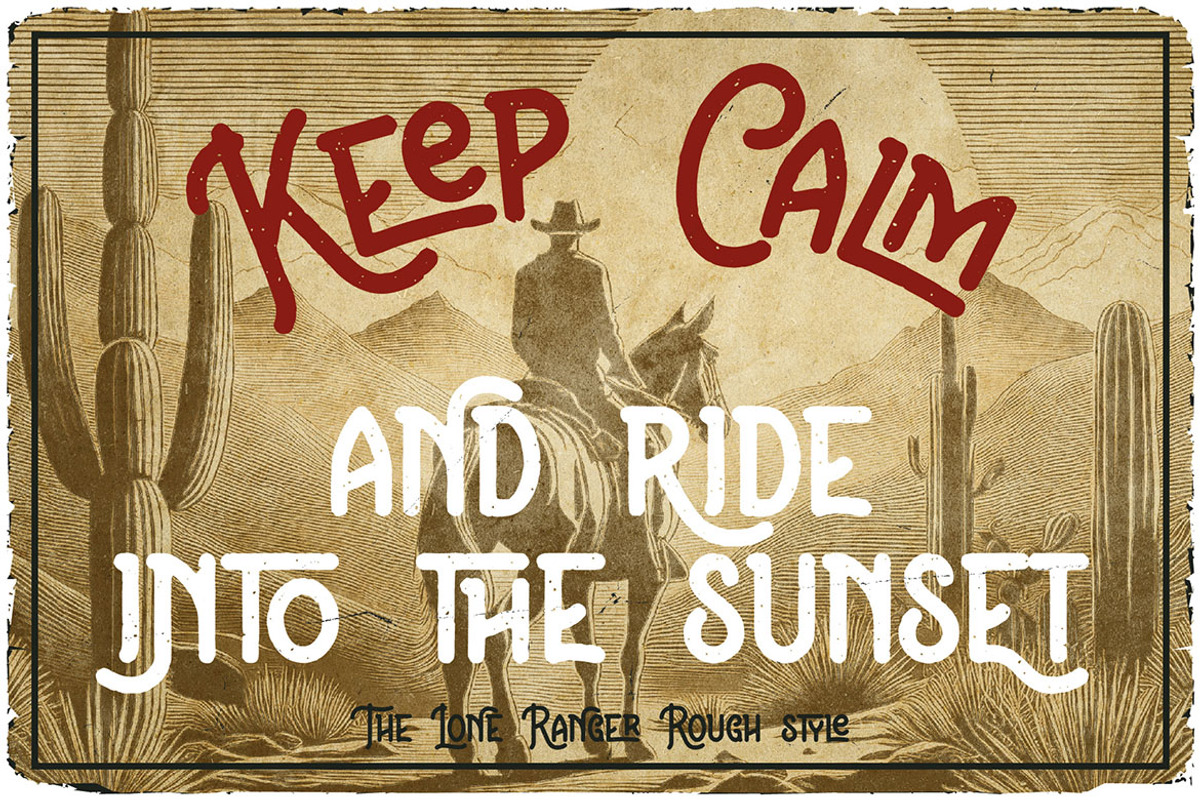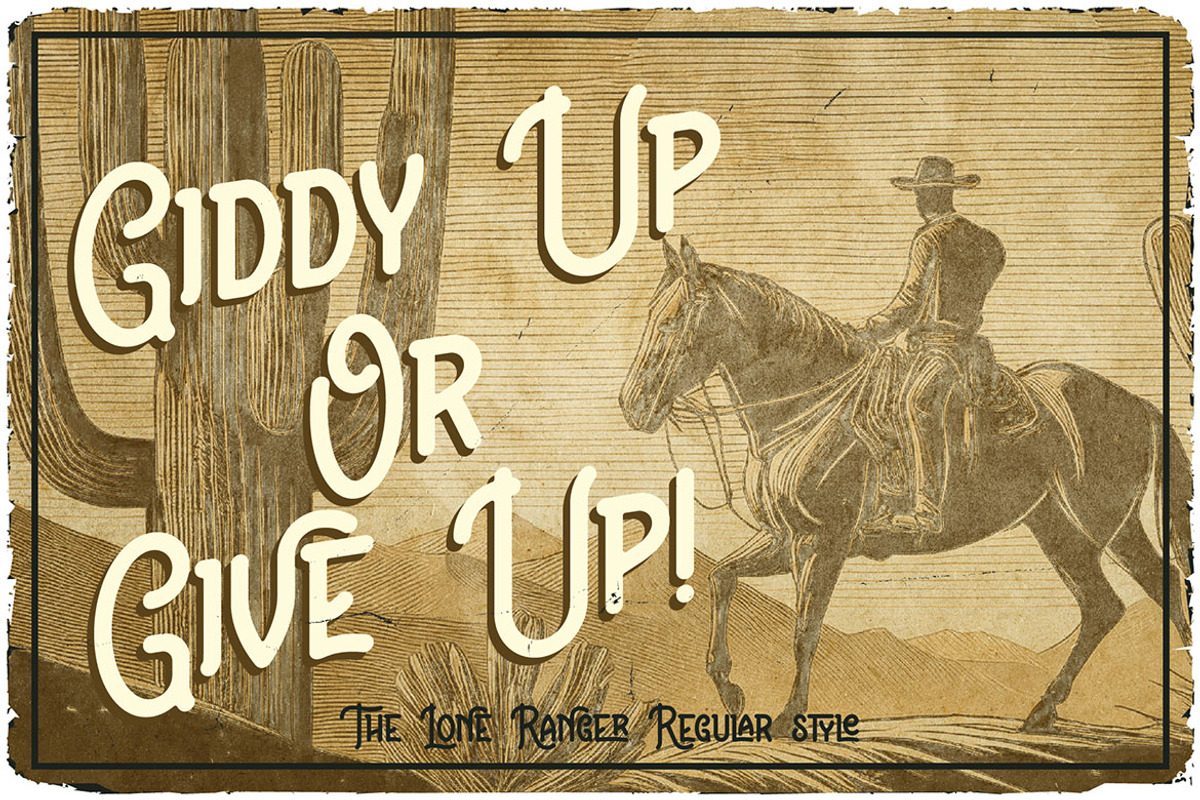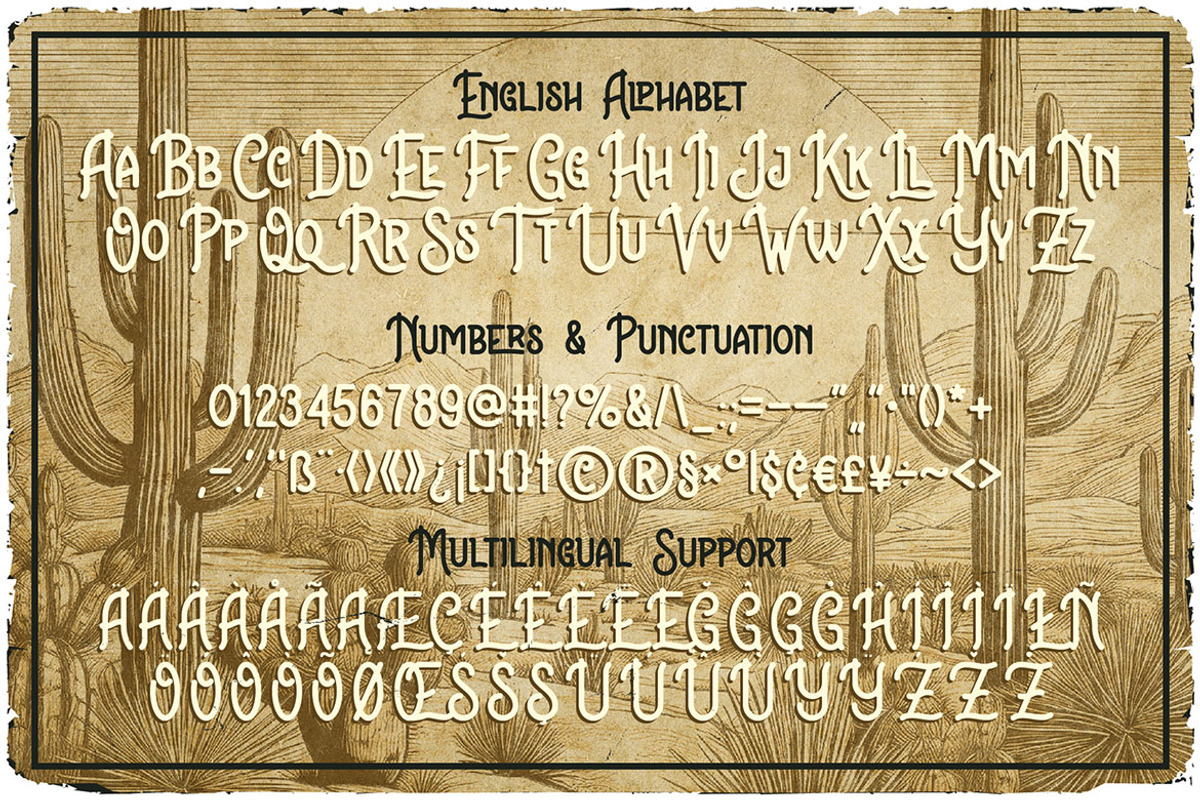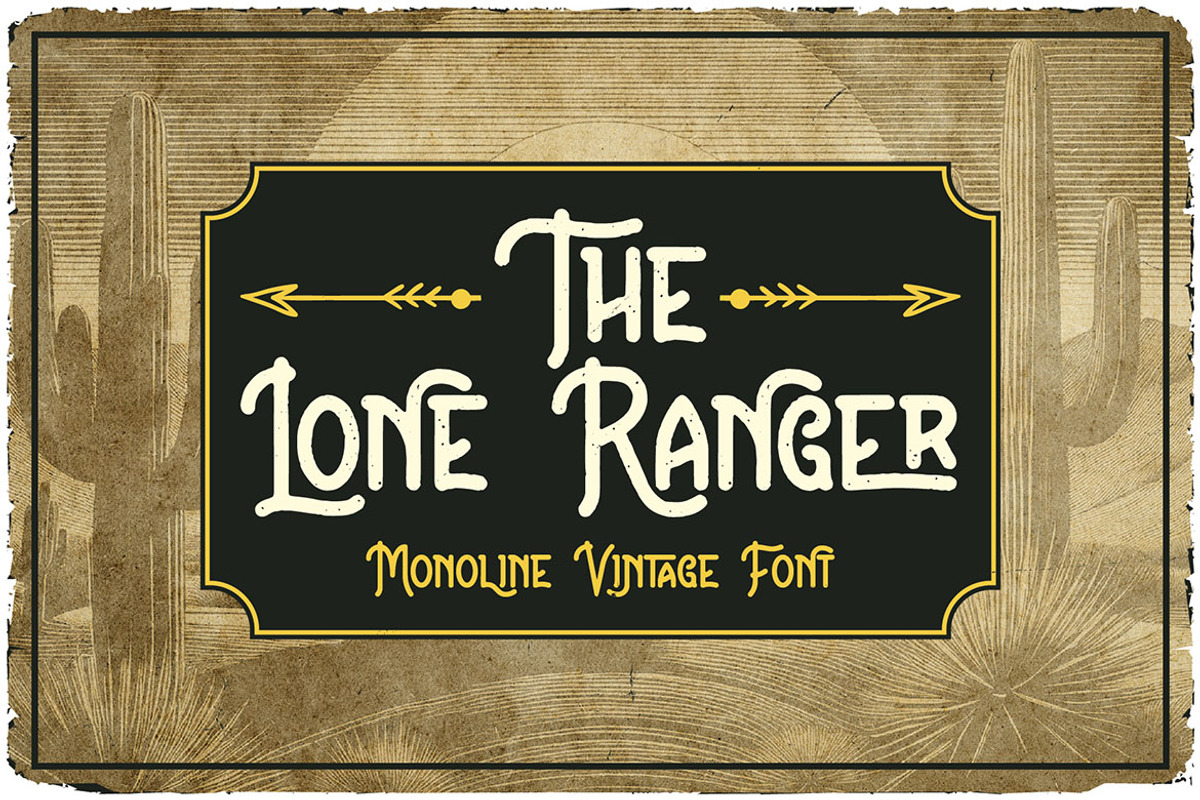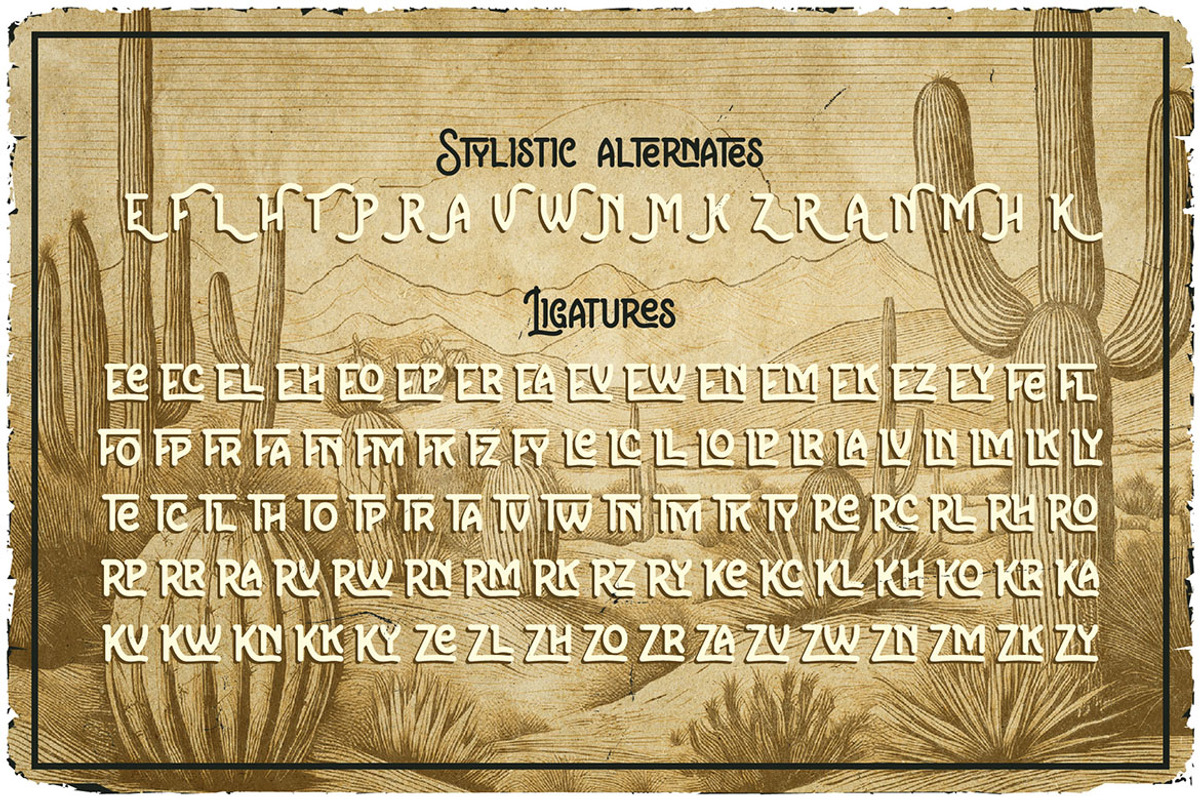
The Lone Ranger
Unique, vintage, textured, simple, retro & monoline handwritten font. Comes with multilingual support & lot of ligatures + regular & rough font versions - great for your new logo, monogram or branding project.
- 2 font versions - regular & rough
- Multilingual support & lot of ligatures
- Great for your new logo, monogram or branding project